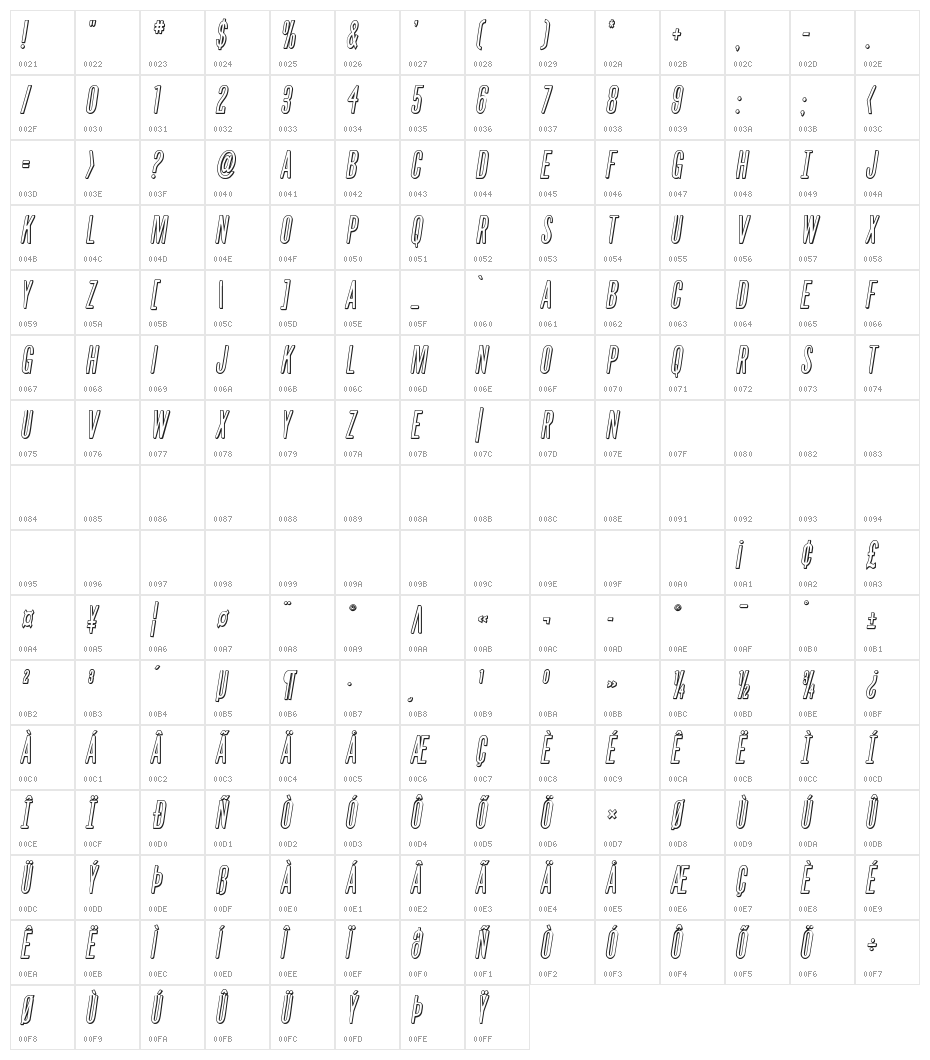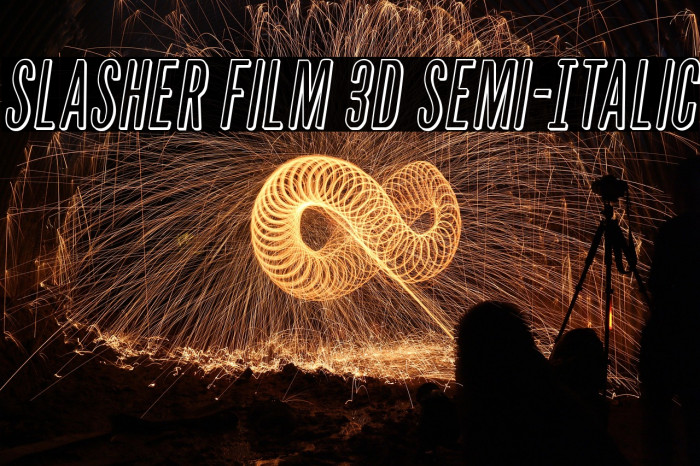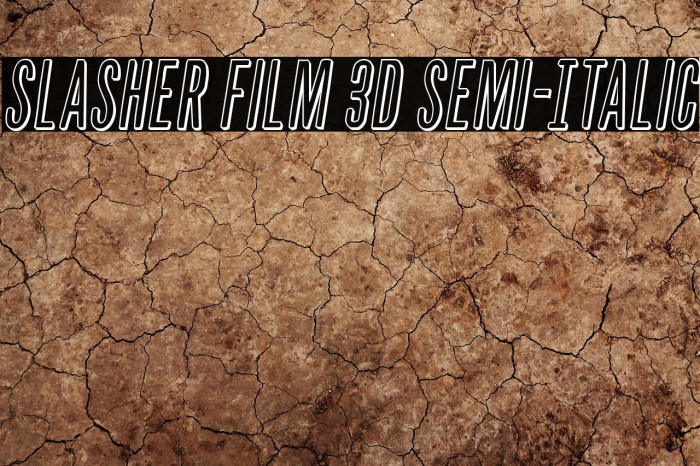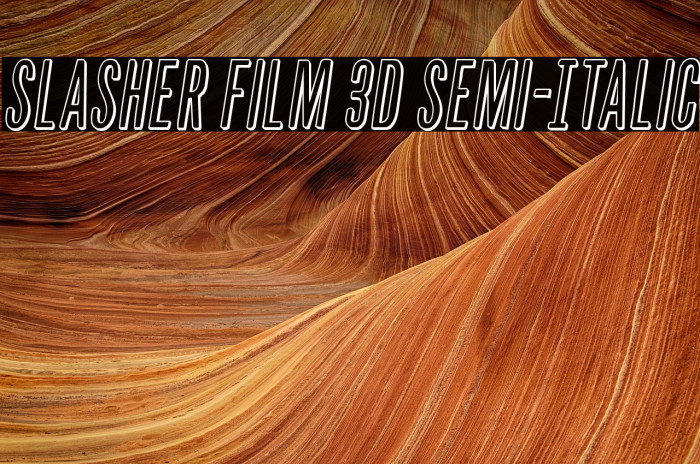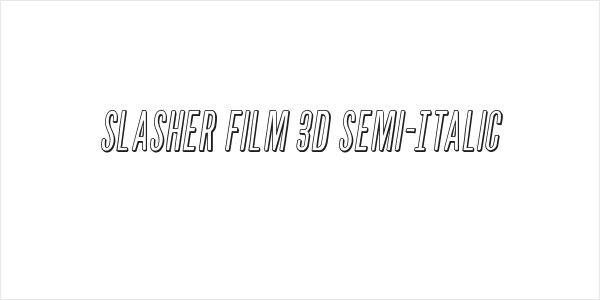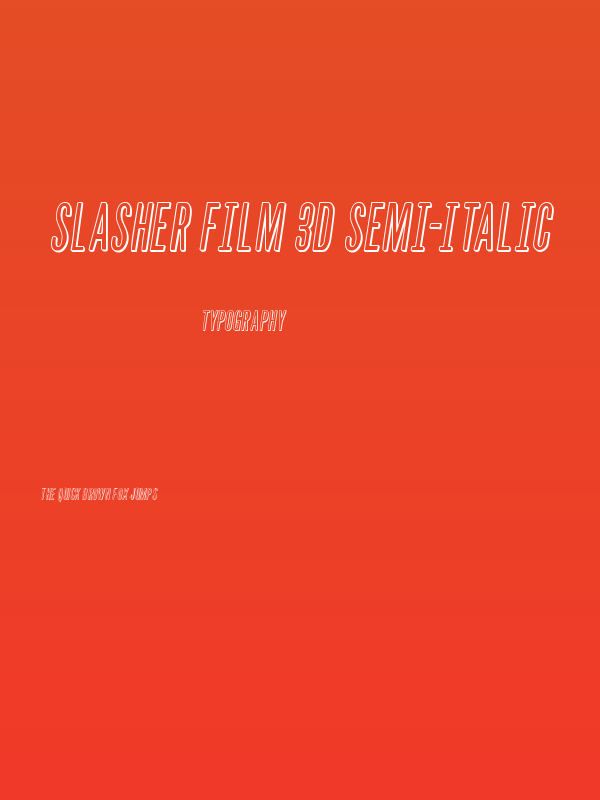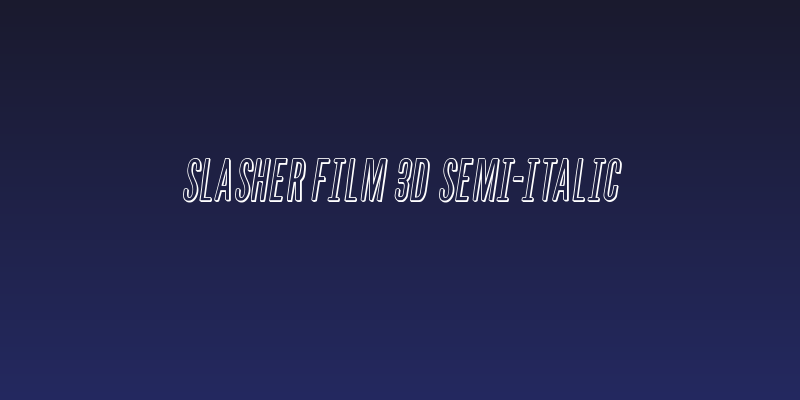
Slasher Film 3D Semi-Italic Font
Slasher Film 3D Semi-Italic Description
This font features a bold, three-dimensional appearance with semi-italicized characters. The letters are outlined, giving them a striking and dynamic look, reminiscent of classic horror film titles. The uppercase and lowercase letters maintain a consistent style, with sharp angles and a slight slant that adds to the dramatic effect. The numbers and special characters are designed to match the bold, outlined aesthetic, making them stand out prominently. This font is ideal for creating eye-catching headlines or titles that require a sense of urgency or excitement.
Proposed ProjectsIdeal for movie posters, especially in the horror or thriller genre, as well as for bold advertising campaigns and eye-catching social media graphics.